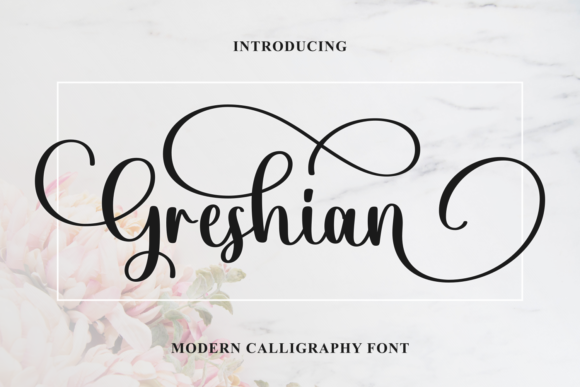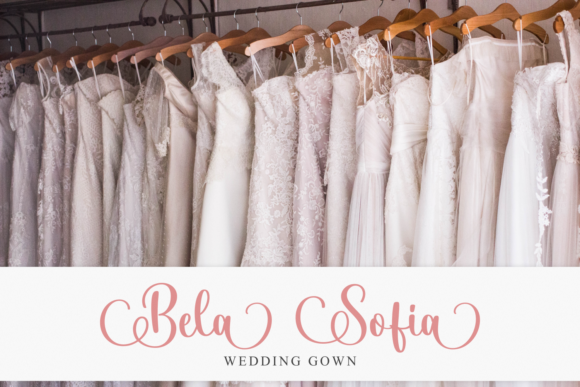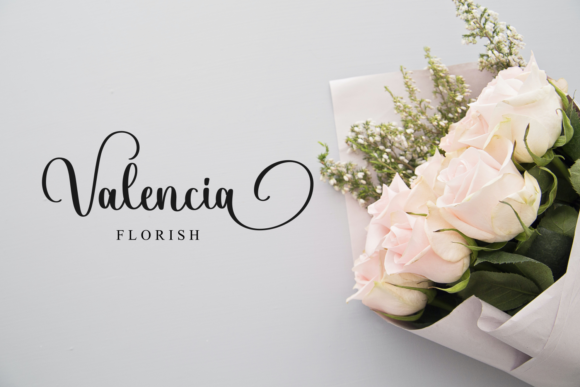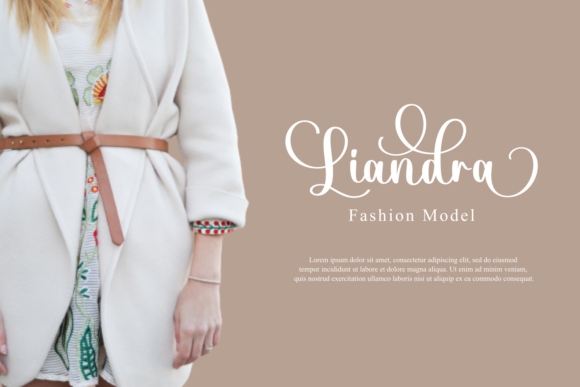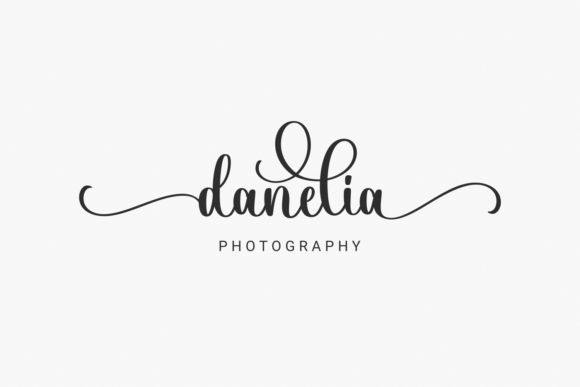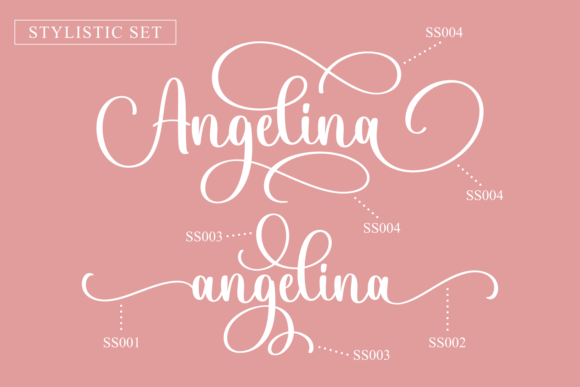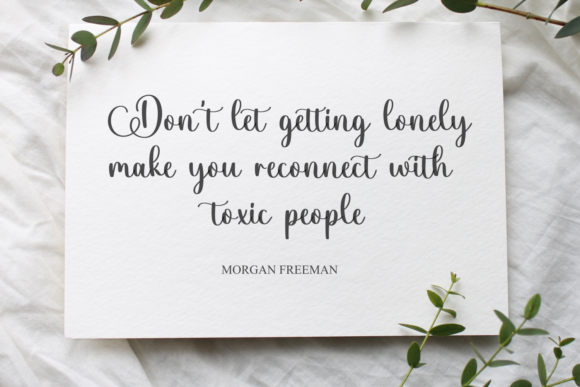
The Perfect Script for Your Masterpiece: Unveiling the Greshian Font
Have you ever sat in front of your computer, staring at a blank canvas, waiting for inspiration to strike? It’s a feeling we’ve all been through – the blank page staring back at us, begging for creativity. But what if you had the perfect tool to unlock that creative spark? Introducing the Greshian Font, a beautiful handwritten script designed to add a touch of elegance to your projects.
Whether you’re working on a logo, branding project, label, or photography, the Greshian Font is the perfect addition to bring a personal touch. Its curly and sweet design makes it an ideal choice for special events, watermarks, and any other project that needs a beautiful script taste. As a designer, you’ll appreciate the versatility and flexibility of this font, allowing you to create stunning visuals that capture the essence of your message.
Greshian Font Key Features
- Font Family: Greshian Font is a unique, hand-drawn typeface with a mix of modern and traditional elements.
- Character Set: Supports a wide range of languages, including Latin, Cyrillic, and Greek alphabets, with over 800 glyphs.
- Unique Characteristics: Features a distinctive, handwritten feel with subtle flair and variation in letterforms, making it ideal for creative and editorial projects.
Greshian Font Review
As a designer, I was excited to dive into the Greshian Font and see what it had to offer. Here’s my honest review.
- The Greshian Font has a unique and elegant feel to it. The intricate details and flourishes make it perfect for high-end branding and design projects.
- The font is highly legible, even at smaller font sizes, which is a major plus for any designer.
- The Greshian Font comes in a variety of weights and styles, giving designers plenty of options to choose from.
- The Greshian Font can be a bit too ornate for some projects, making it difficult to read in certain contexts.
- The font may not be suitable for body text, as it can be overwhelming to read large blocks of text in this font.
- The Greshian Font may require additional styling to make it work well in certain design projects.
Overall, the Greshian Font is a solid choice for designers who want to add a touch of elegance and sophistication to their projects. However, it may not be the best fit for every design project. With a little creativity and styling, the Greshian Font can be a valuable addition to any designer’s toolkit.
Use the Greshian Font for headings, titles, and other display text to add a touch of elegance and sophistication to your designs.
It’s particularly well-suited for use in luxury branding, fine art, and high-end marketing materials.
Experiment with different font sizes and styles to create visual interest and emphasis.